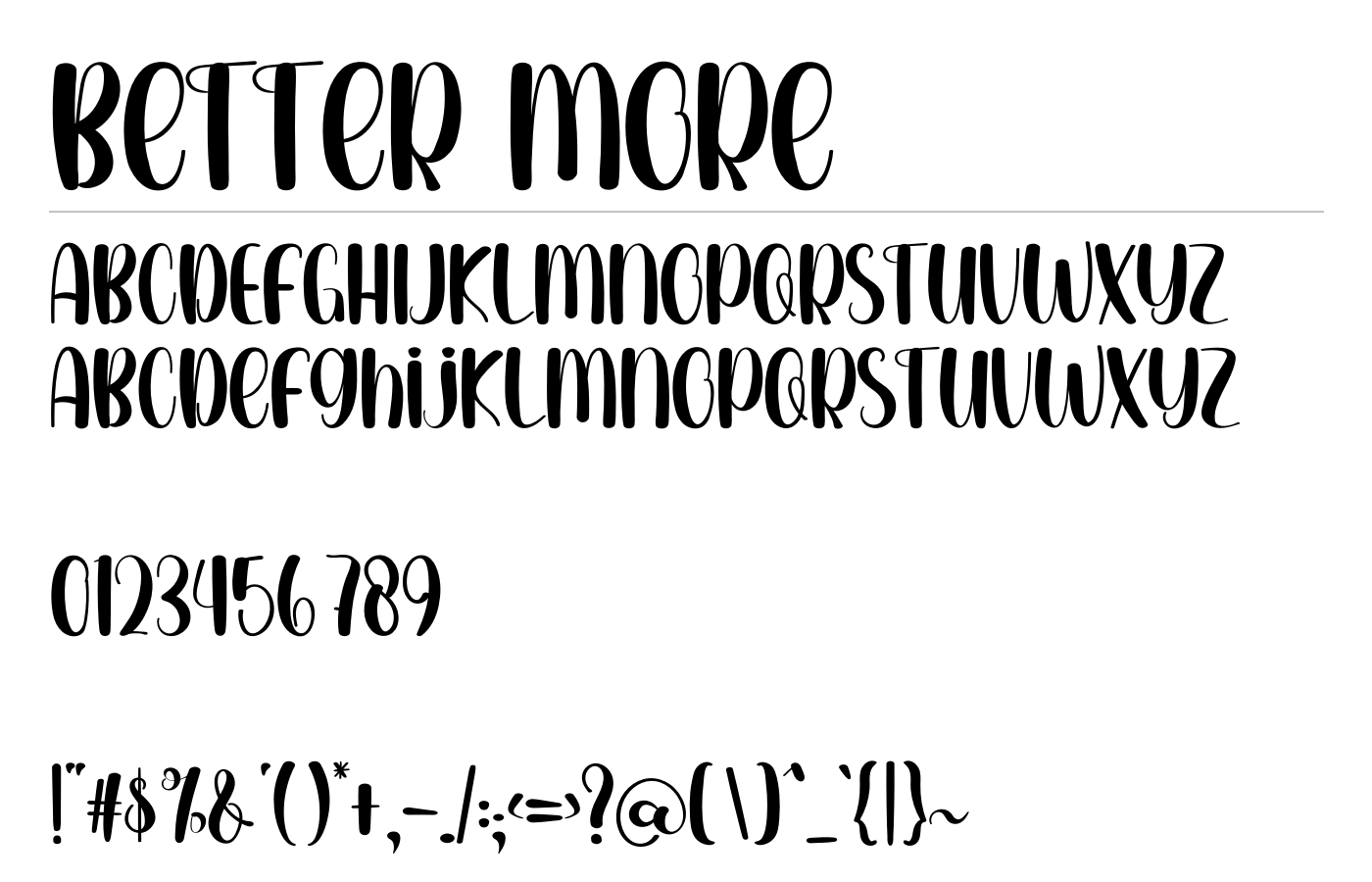
Better More Font is a playful and whimsical sans serif with a hand-drawn feel, featuring tall, narrow letterforms with a lively mix of thick and thin strokes. Its quirky shapes and swirly details give it a friendly, informal personality, making it ideal for creative projects like invitations, children’s books, and fun branding. This font works best for headlines and display use where a unique, charming style is needed to grab attention and convey warmth.
Better More Font
About Better More Font